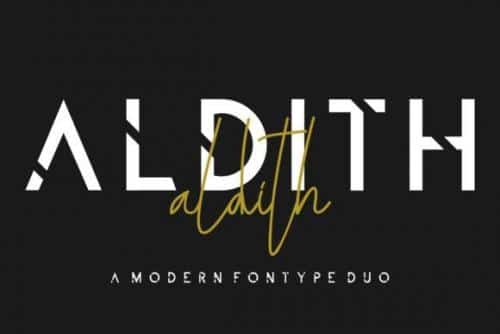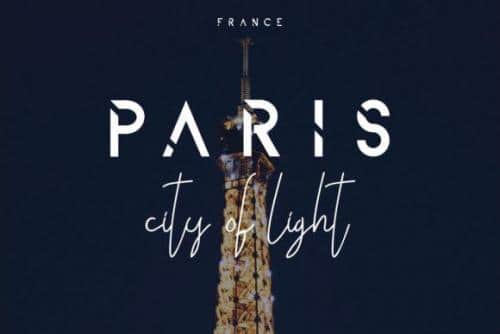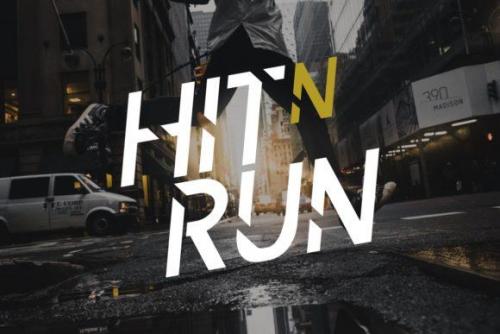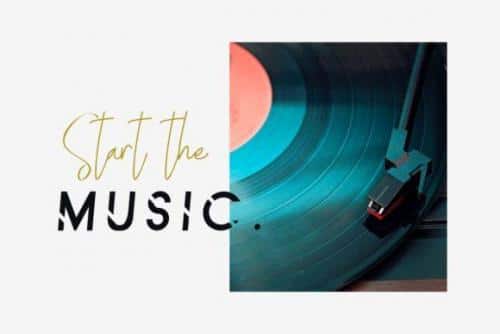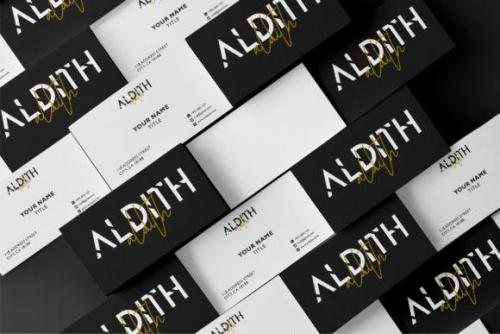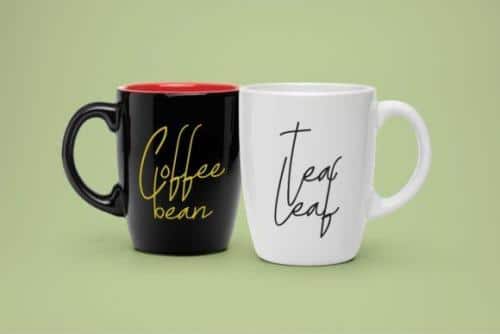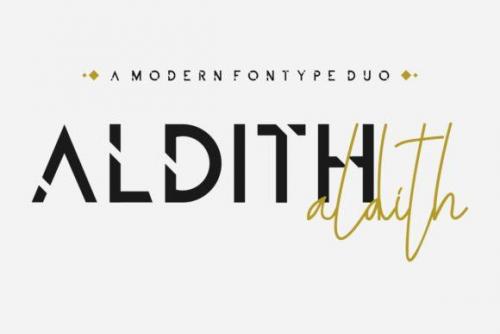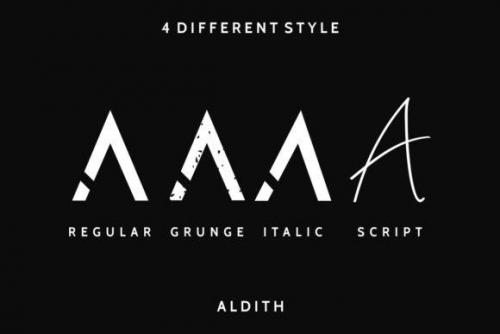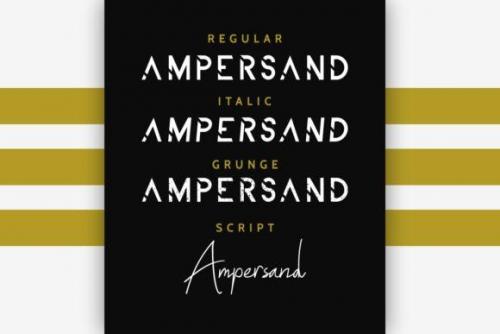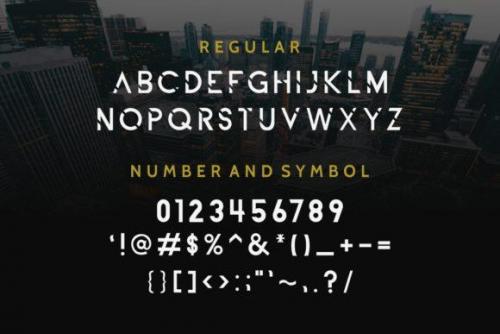
What’s up guys! Introducing our newest font : ALDITH ! It’s a QUARTET font! contains script, italic, grunge and regular.
This is a combination of several styles : stylish handwritten script, vintage grunge, elegant italic and modern fonts, It has a fresh, unique, handmade and exclusive glyph.
It will be perfect for branding, logo, photography ,signature, biz card, stationery, business card, signage, flyer, brochure etc.
There are many industries that is suitable for this font : Wedding, real estate, services, law firm, coffee, cafe, beauty, spa, event organizer, architect etc.